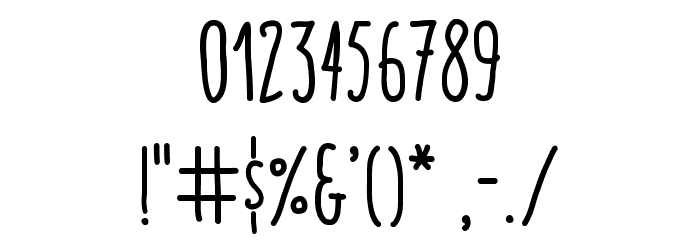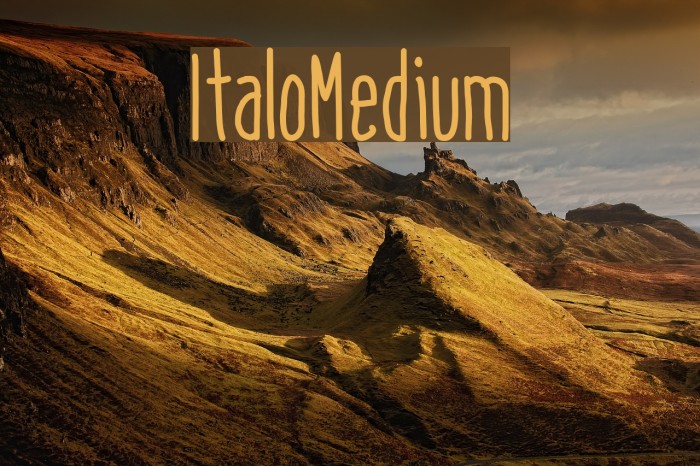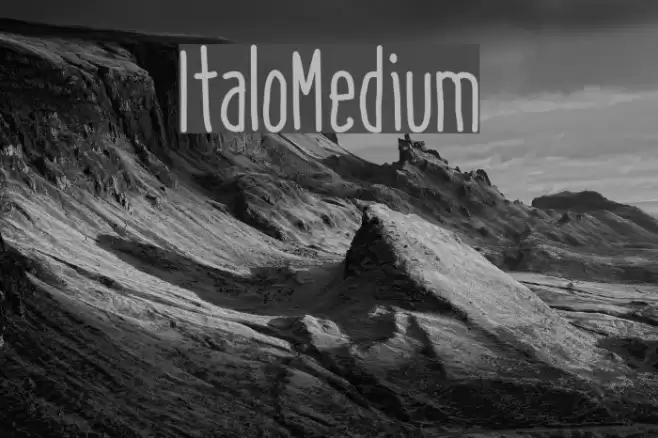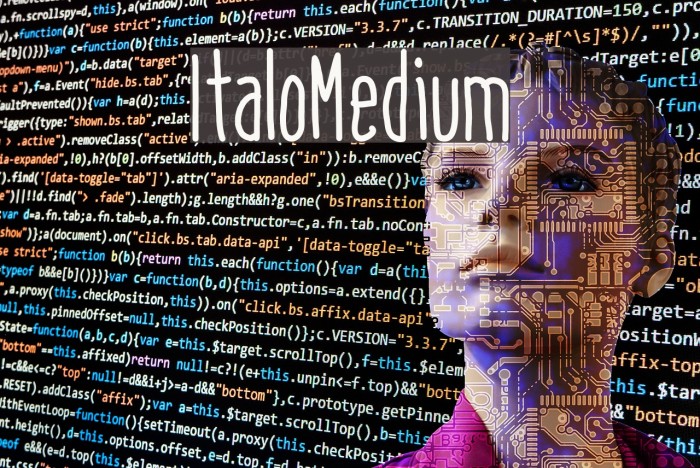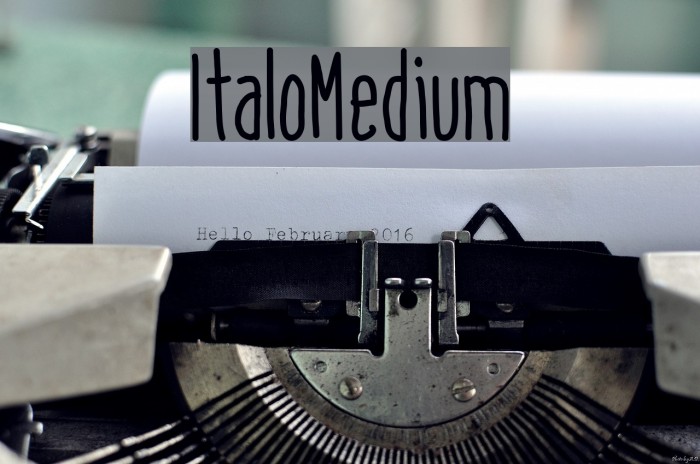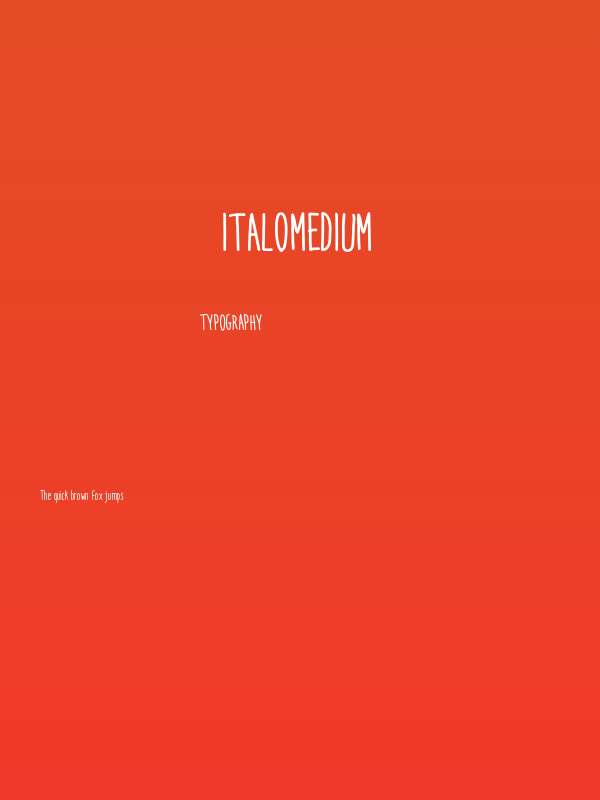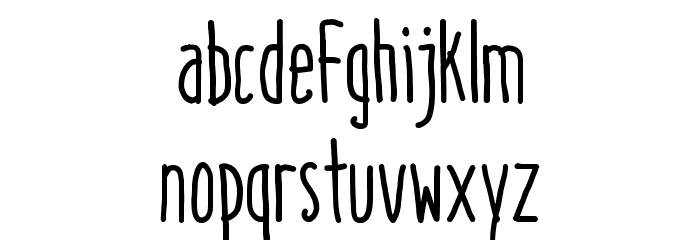
ItaloMedium Font
ItaloMedium Description
This font features a playful and casual handwritten style, characterized by its tall and narrow letterforms. The strokes are slightly irregular, giving it a charming and informal appearance. The uppercase letters are consistent in height, while the lowercase letters maintain a uniform baseline with slight variations in ascenders and descenders. The numerals are distinct and easy to read, complementing the overall style. Special characters are well-integrated, maintaining the font's cohesive look. This font's unique personality makes it suitable for creative and informal projects.
| Proposed Projects | Ideal for greeting cards, invitations, children's books, and playful branding projects. |